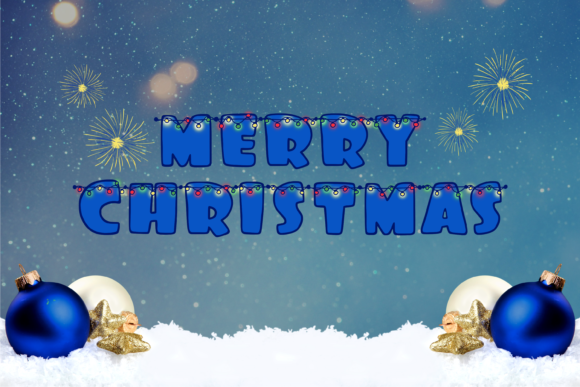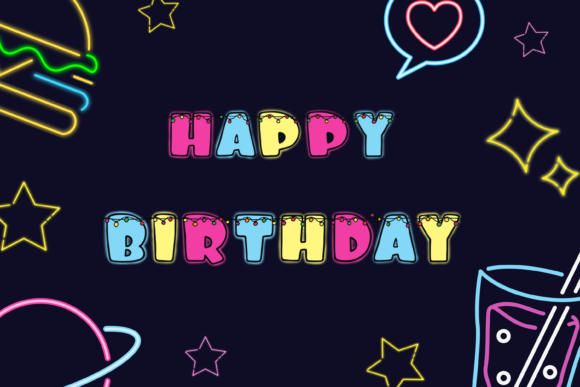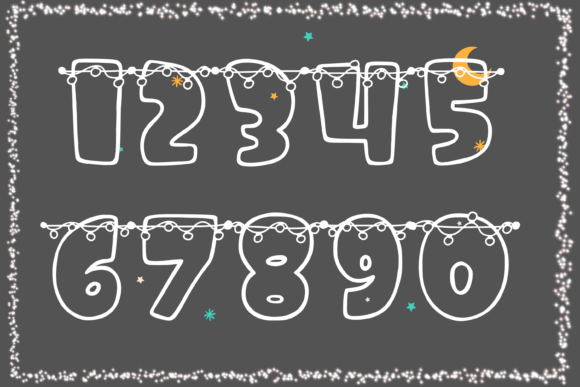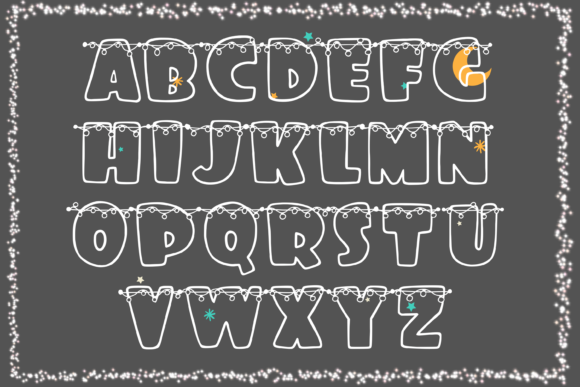
Introduction to Party City Font
Have you ever been brainstorming ideas for a creative project and suddenly, a spark of inspiration hits you? For designers, it’s moments like these that make the creative process so magical. Perhaps you’re working on a holiday-themed design and need a font that captures the essence of the season. That’s where the Party City Font comes in – a delightful, whimsical font that’s sure to make your work shine.
This charming font is a game-changer for designers, offering a unique and playful style that’s perfect for creating high-quality artworks for any occasion. With its transparent background and customizable design, it’s a valuable resource for anyone looking to add a personal touch to their projects. Whether you’re working on a Christmas design or a New Year’s Eve celebration, the Party City Font is sure to be a hit.
Key Features of Party City Font
- High-quality design: Party City Font is a premium design resource ideal for creative projects that require a unique and eye-catching touch.
- Transparent background: This feature allows for seamless integration with various backgrounds and designs, making it a versatile choice for designers.
- High-resolution design: Party City Font is designed at a high resolution (300 DPI) to ensure crisp and clear text output, making it suitable for a variety of design applications.
- Unique characteristics: The font features a distinctive and playful design, making it perfect for creative projects that require a fun and festive atmosphere.
Honest Review: Party City Font
As a designer, I’ve come across a plethora of design resources to enhance my creative projects. Recently, I stumbled upon the Party City Font, and I’m excited to share my thoughts on this free download.
What works well is the font’s playful and festive vibe, making it perfect for designs related to parties, celebrations, or any other fun occasion. The Party City Font is available for free download, which is a definite plus, especially for designers working on a tight budget.
However, there are a few limitations to consider. The font’s design may not be suitable for formal or professional projects, and it may not be as versatile as some other fonts in the market.
Overall, the Party City Font is a great addition to any designer’s toolkit, especially for projects requiring a fun and festive touch. While it may have some limitations, its high-quality design and free download make it a valuable design resource.
Tips for Getting the Most Out of Party City Font
For best results, use the Party City Font on a high-contrast background to make the text stand out.